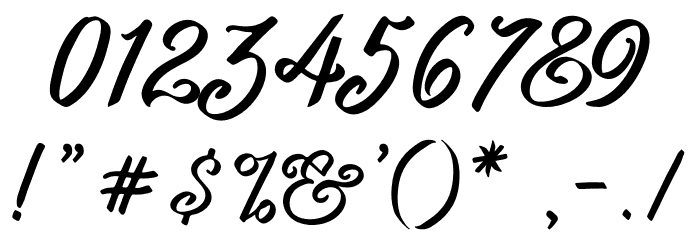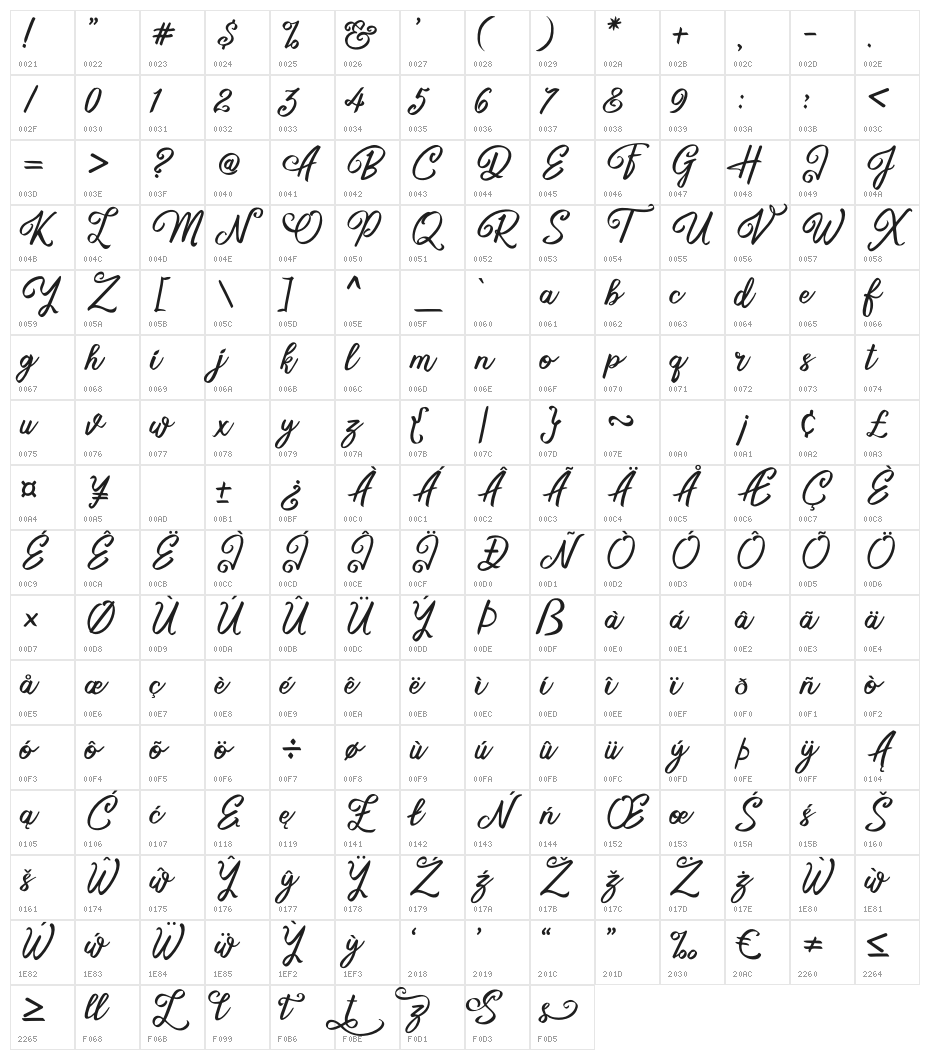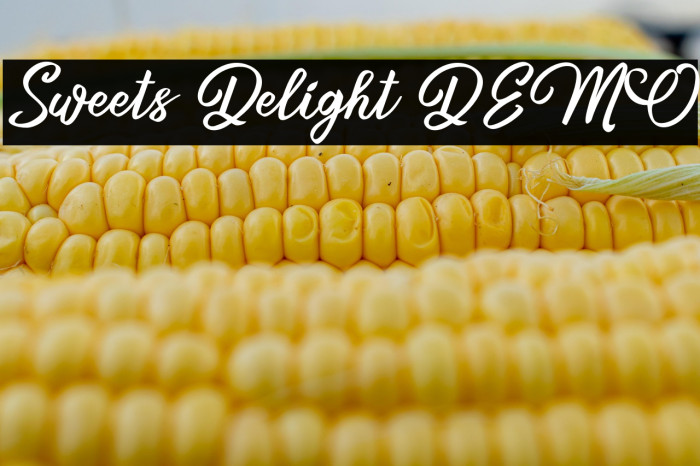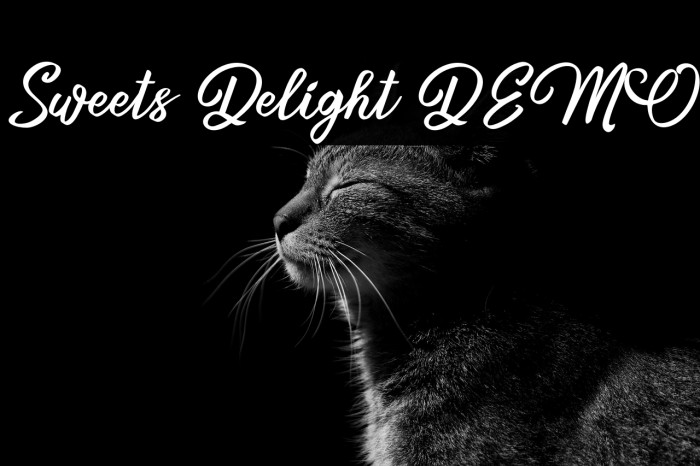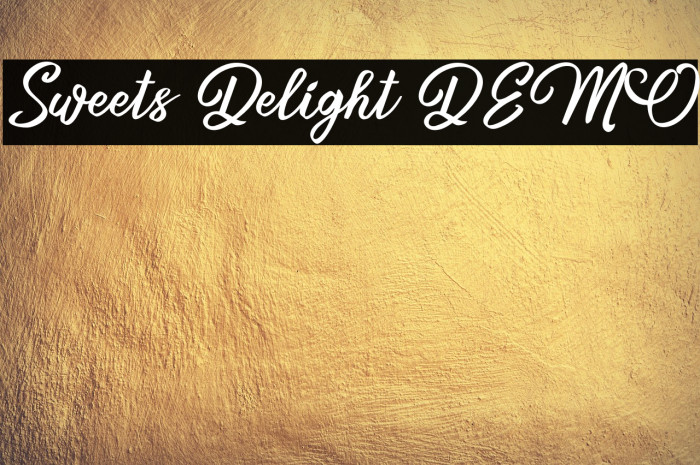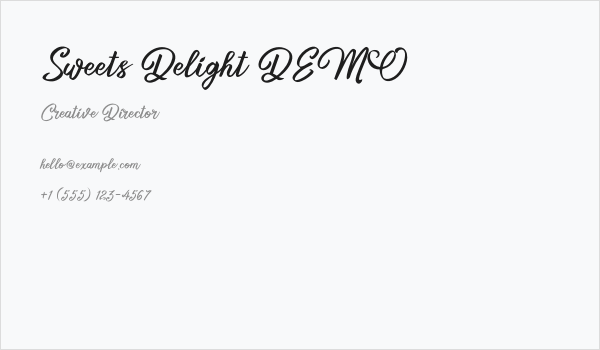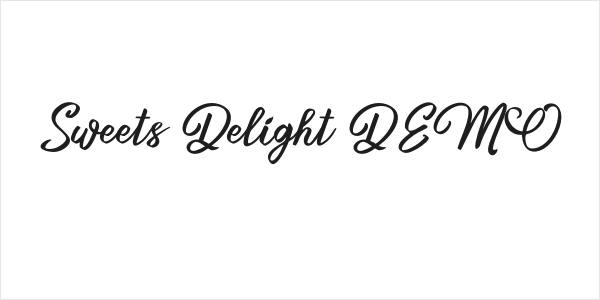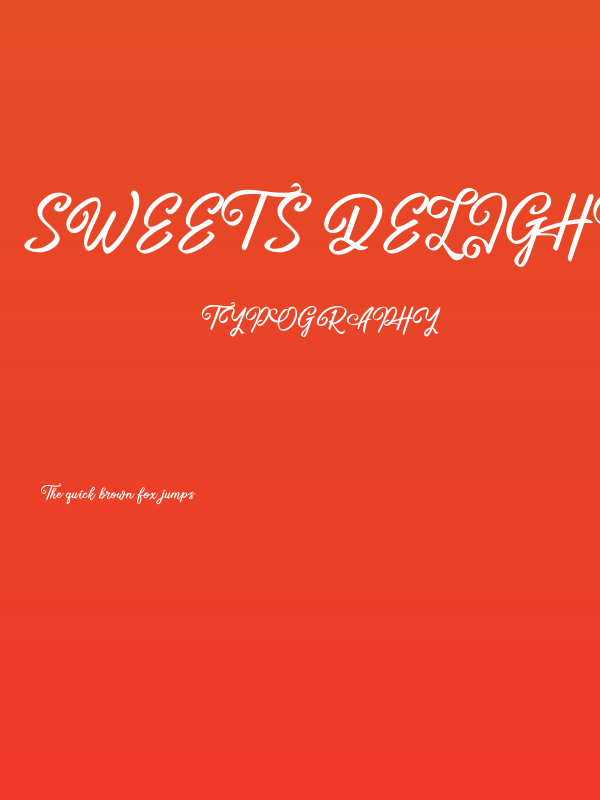
Sweets Delight DEMO Font
Sweets Delight DEMO Description
This elegant script font features a flowing, cursive style with a playful and sophisticated flair. The uppercase letters are adorned with intricate loops and swirls, giving them a decorative and artistic appearance. The lowercase letters maintain a smooth, connected flow, enhancing the font's overall cohesiveness. Numbers and special characters are designed with the same attention to detail, ensuring consistency throughout. The font's bold strokes and high contrast make it stand out, while its graceful curves add a touch of elegance. This font is perfect for projects that require a personal, handwritten touch, such as invitations, greeting cards, and branding materials.
| Proposed Projects | Ideal for wedding invitations, greeting cards, logos, and branding materials. |